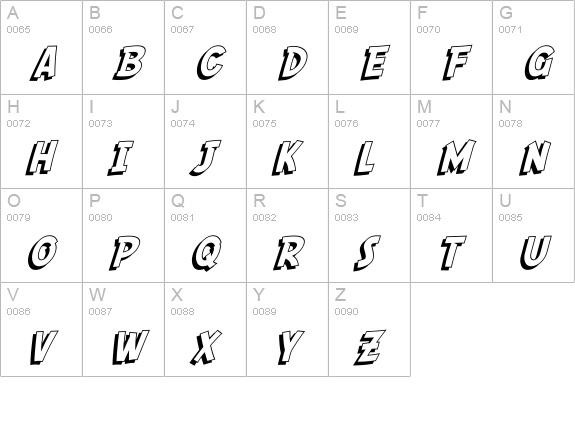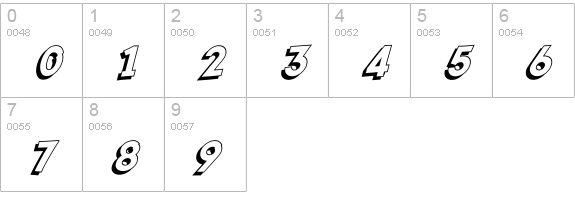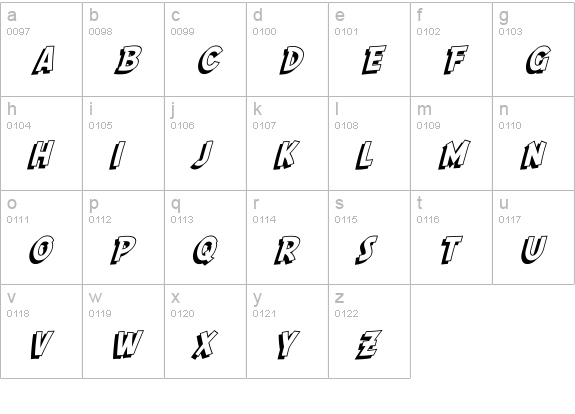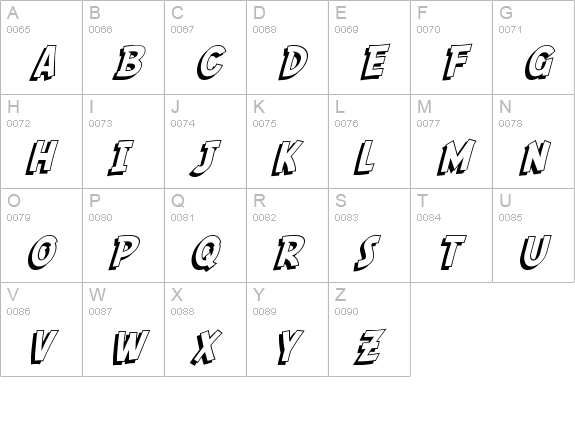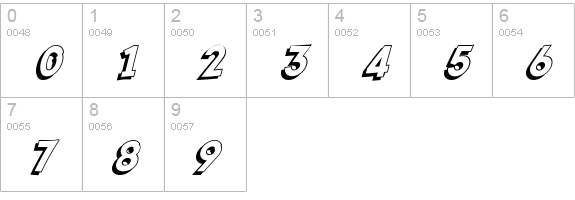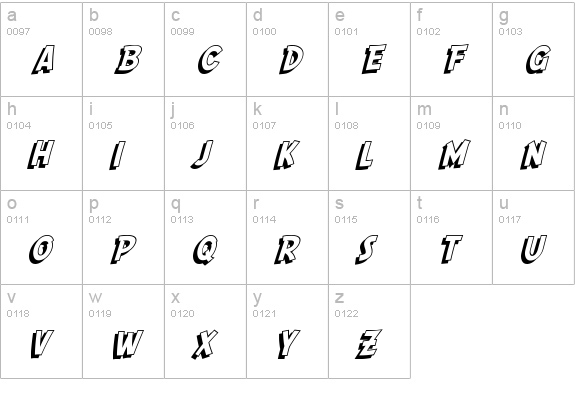
SF Comic Script Shaded Font Details
Introducing SF Comic Script Shaded, a playful and dynamic font that will bring your comic book creations to life! With its unique shading and bold strokes, this font adds depth and dimension to your text, making it jump off the page. Whether you're designing a superhero saga, a whimsical graphic novel, or a hilarious comic strip, SF Comic Script Shaded is the perfect choice to capture the essence of the genre. What's even better is that SF Comic Script Shaded is completely free! That's right, you can download this fantastic font without spending a dime. It's the perfect opportunity to enhance your creative projects without breaking the bank. And where can you find this amazing font? Look no further than FontsMarket.com, your one-stop destination for high-quality fonts. Not only does SF Comic Script Shaded offer stunning aesthetics, but it also provides excellent legibility. Each letter is meticulously crafted to ensure clear and readable text, even in small sizes. This font is a harmonious blend of fun and functionality, allowing you to effortlessly convey your ideas while captivating your audience. SF Comic Script Shaded is versatile, allowing you to experiment with different styles and moods. It lends itself well to both digital and print media, giving you the freedom to use it in various projects. Whether you're creating digital comics, merchandise, advertisements, or even custom illustrations, this font will make your artwork stand out from the crowd. So why wait? Unleash your creativity with SF Comic Script Shaded, the ultimate tool for comic enthusiasts and designers alike. Download it for free at FontsMarket.com and embark on a thrilling typographic journey that will leave a lasting impression on your readers. Get ready to bring your comic book dreams to life with this incredible font!